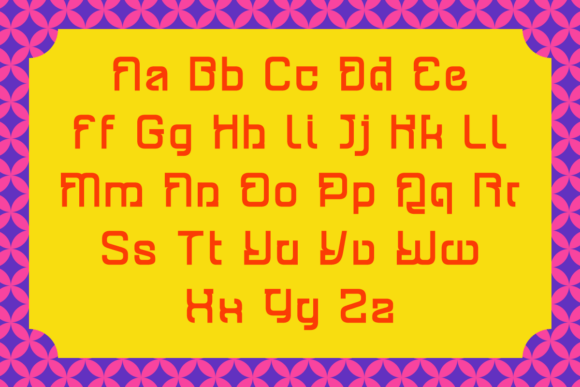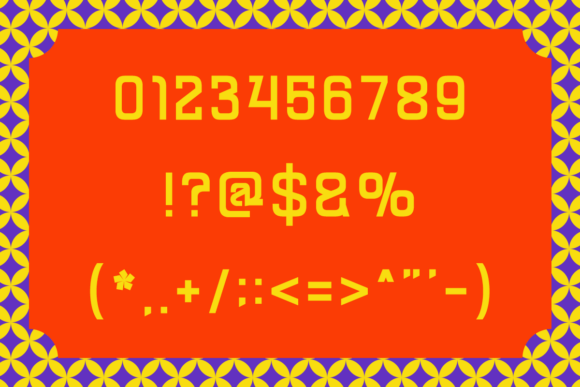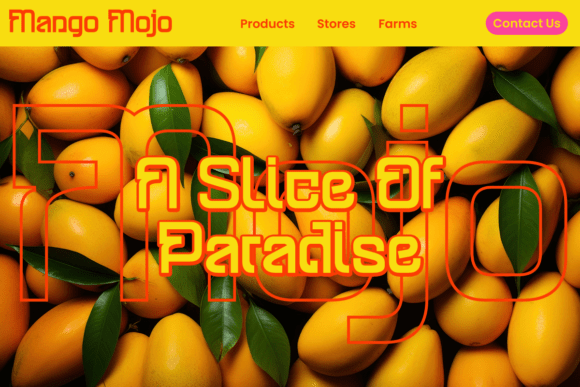
Introduction to Rungdee Font
Elevate your designs with Rungdee Thai Display Font, a vibrant and bold Thai display typeface blending modern geometric shapes with a distinctively Thai aesthetic.
Its structured yet playful letterforms evoke the essence of traditional Thai signage and contemporary design, making it perfect for branding, packaging, posters, and cultural-themed projects With a striking balance of readability and artistic expression, Rungdee captures the spirit of Thai visual identity, adding a fresh and dynamic touch to any creative work.
Key Features of Rungdee Font
Why Choose Rungdee Font?
Rungdee Font offers exceptional quality and versatility, making it a valuable addition to your design toolkit. Whether you’re creating for personal projects or commercial use, Rungdee Font delivers professional results.